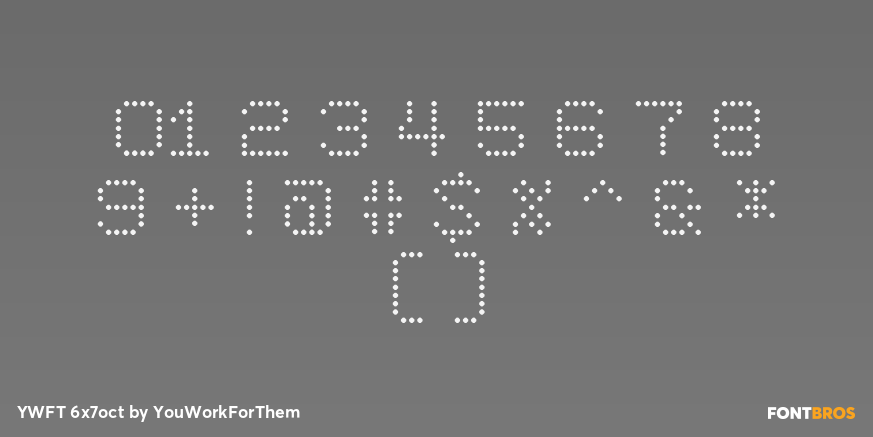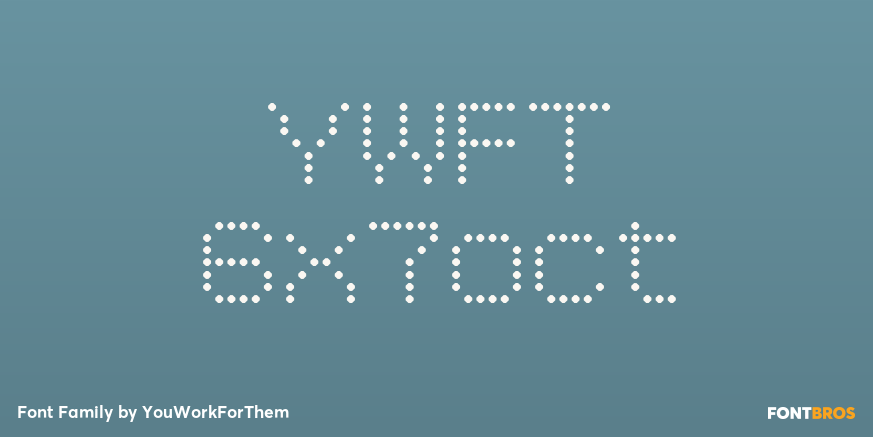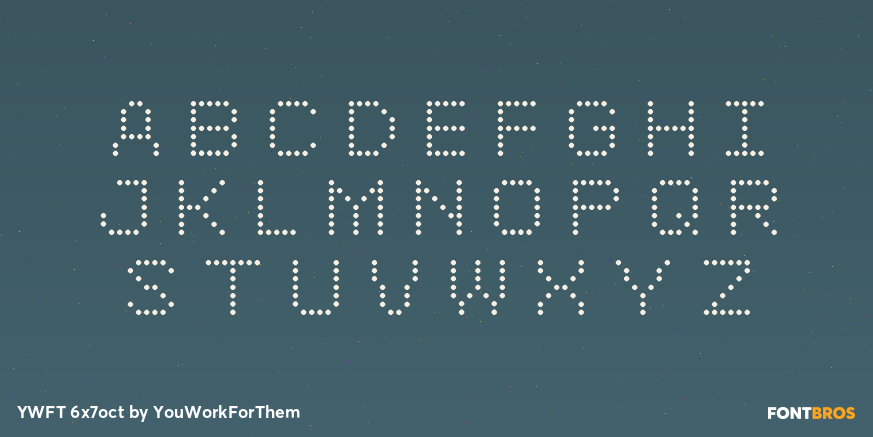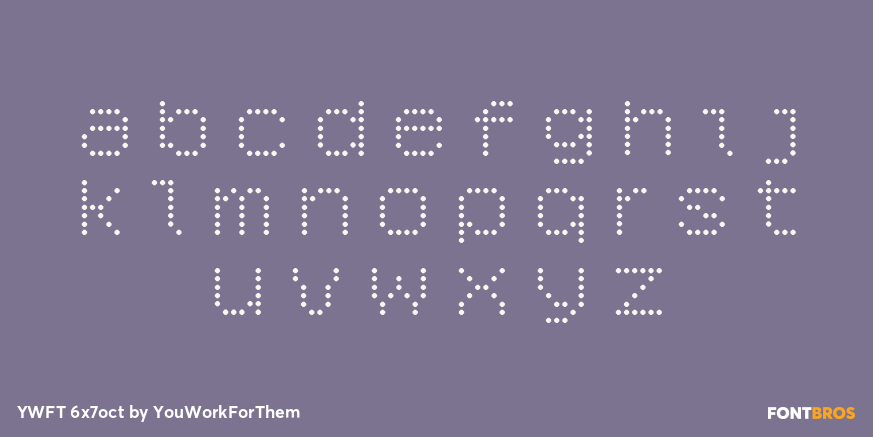
YWFT 6x7oct
Font Family by YouWorkForThem
YWFT 6x7oct was originally inspired by found maps that were drawn with only octagonal shapes. When creating this typeface, we used different influences such as punch cards and other electronic devices that use systematical circles for readout. YWFT 6x7oct has been used in advertisements by the popular hat store Lidz and for VH1 brand spots.